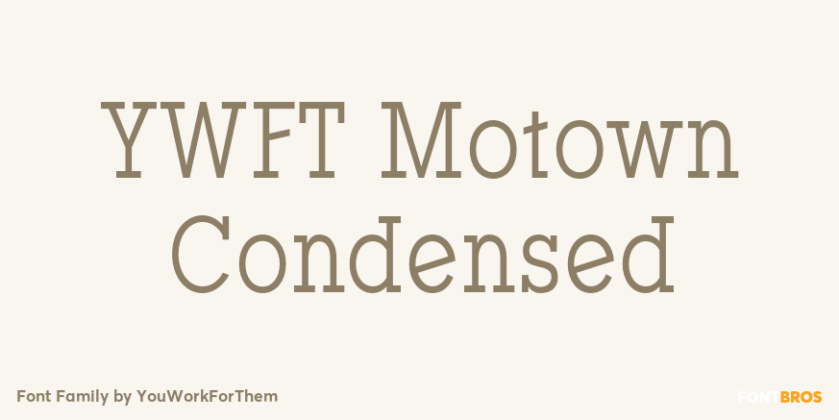
YWFT Motown Condensed
About YWFT Motown Condensed
YWFT Motown Condensed is a geometric slab serif that contains a total of 5 weights. Although it was intended to be used as a display face, YWFT Motown Condensed\’s heavier weights can be used effectively for text as well. The angled crossbars and vertically…